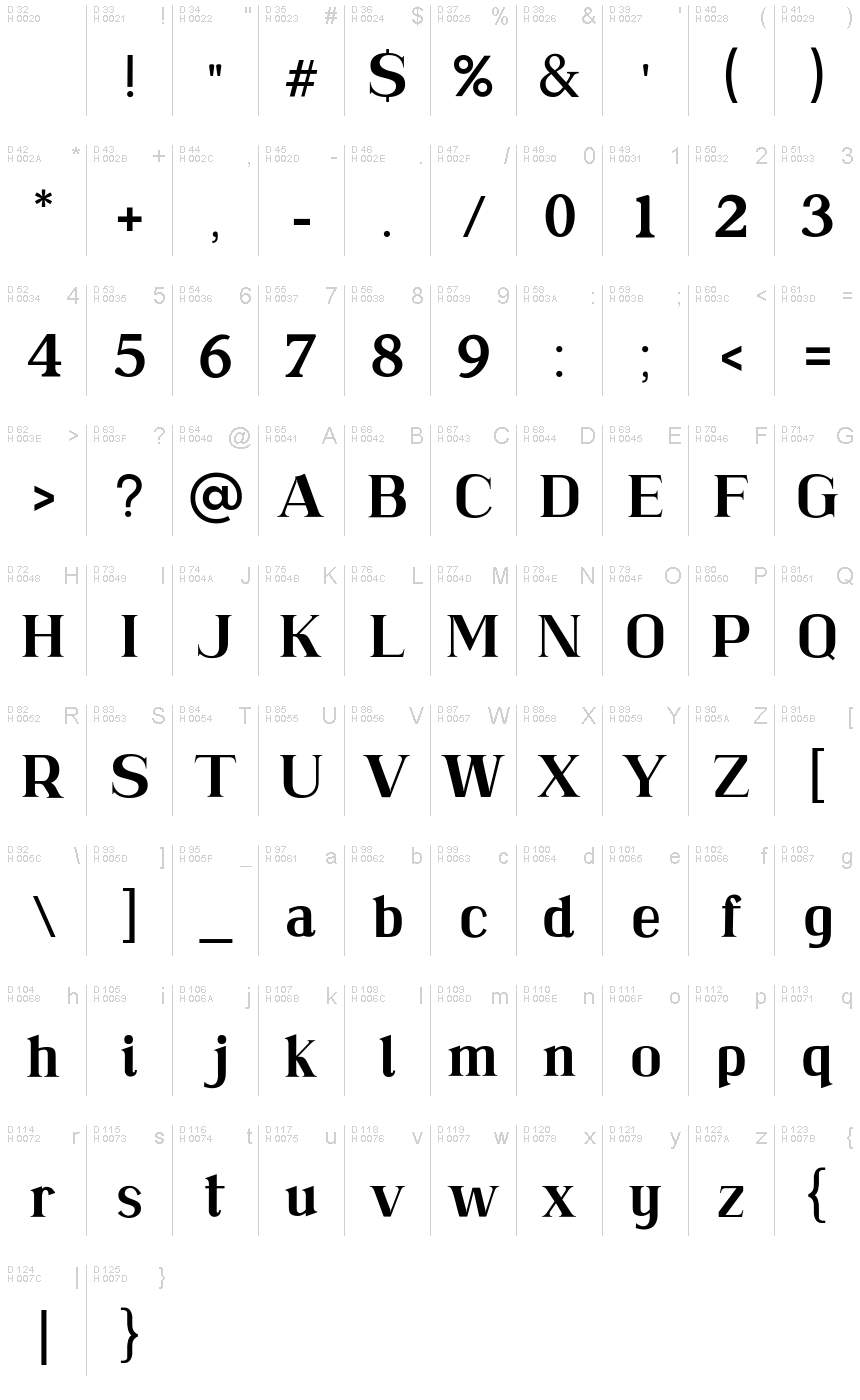
Cremiline
Cremiline, a captivating serif font crafted by UI Creative, exudes a timeless elegance and sophistication. Its refined letterforms and harmonious proportions create a sense of refined beauty, evoking a timeless and erudite aesthetic. The font's striking contrast between thick and thin strokes, coupled with its graceful serifs, lend it a distinct personality that commands attention.
Cremiline's versatility makes it a versatile choice for a wide range of design applications, from editorial layouts and book covers to high-end branding and prestigious business communications. Its traditional-yet-modern sensibility allows it to seamlessly blend into both classical and contemporary design contexts, enhancing the visual appeal and elevating the overall composition.